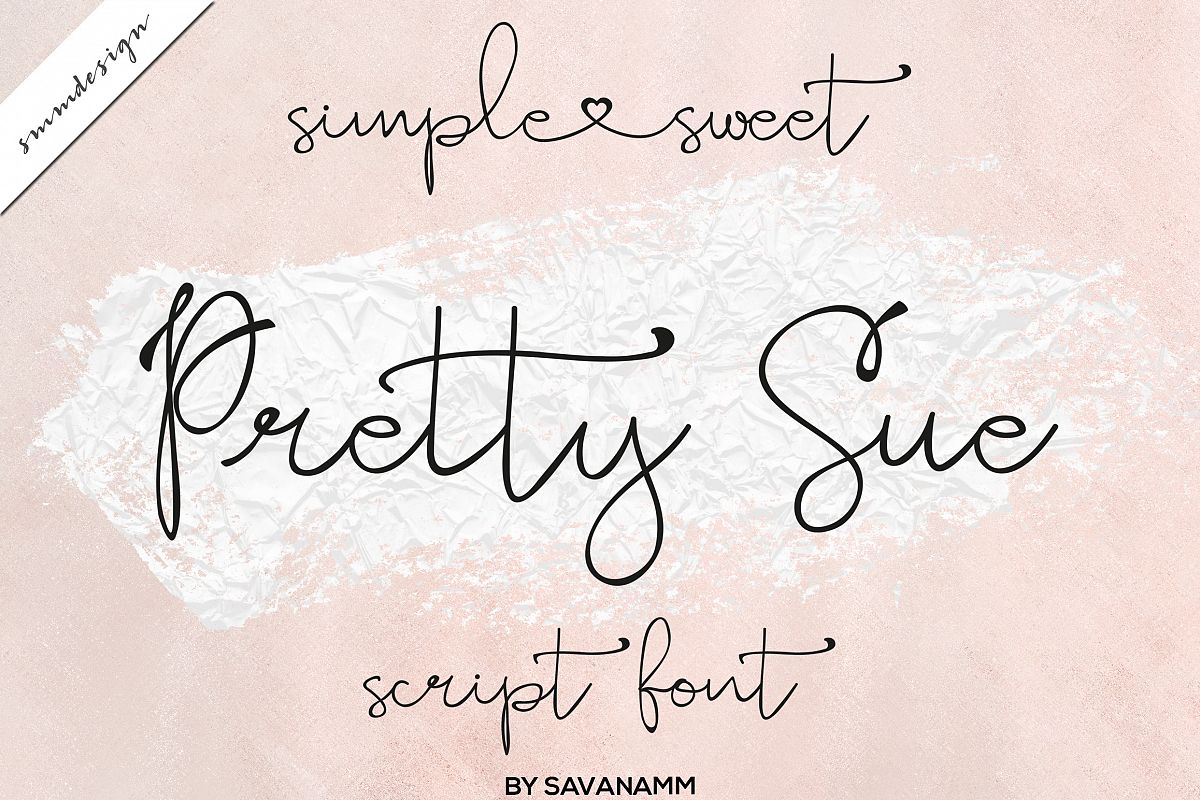
Pretty Sue sweet girly script font
Hi, and thanks for stopping by! I'm introducing the new modern calligraphy hand lettered font, Pretty Sue ,sweet script girly font with a real handwritten feel. Modern, yet feminine and romantic, and easy to read. The font has connecting heart shaped swashes that make it ideal for wedding invitations, baby/children branding, logos, etc..If you have any questions, please contact me. Thanks, Jelena,